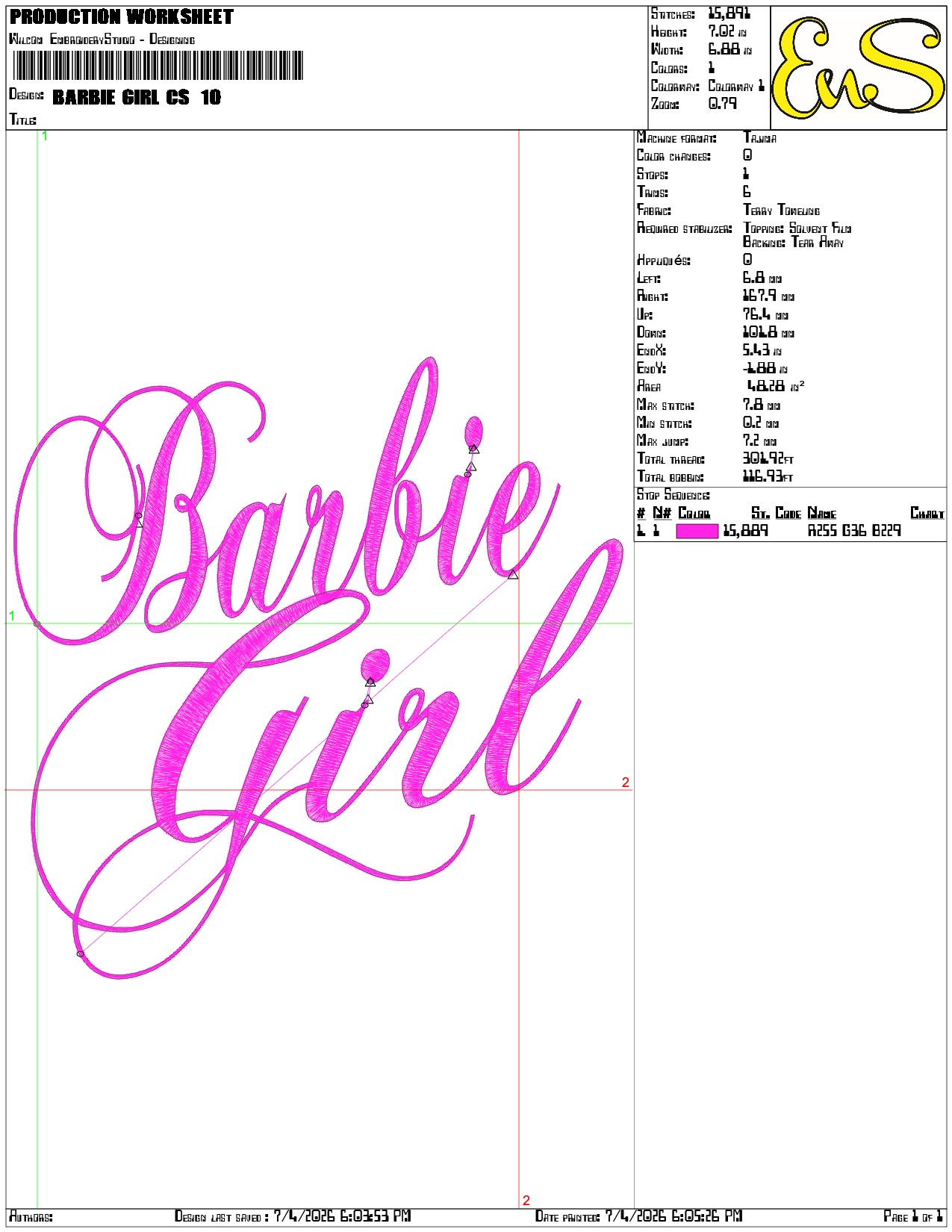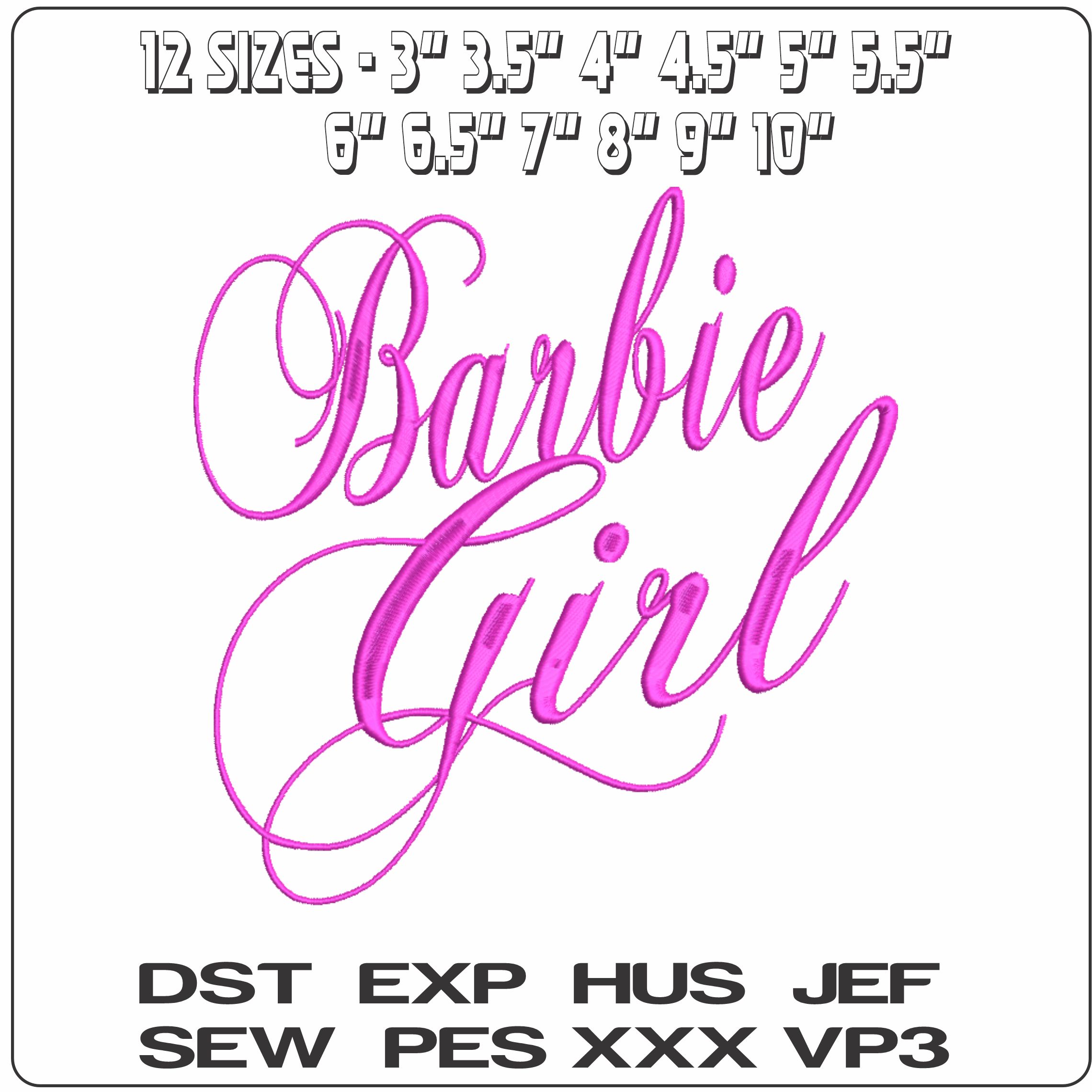
Soft pink Barbie Girl script adds a polished, playful finish to jackets, sweatshirts and bedroom accessories.
For soft pink sparkle, this Barbie Girl embroidery design keeps the focus on the words themselves, stitched in decorative cursive with long swashes and a neatly stacked layout. The Chopin-style script gives it that familiar doll-inspired look without clutter, so it reads clearly while still feeling dressy and feminine. It suits children’s clothing, girly gifts and anyone wanting a bold Barbie-style nameplate feel on everyday pieces.
Because it uses a single thread colour and is lightly stitched, it keeps a clean, airy look rather than turning heavy or blocky. That makes it a good choice for T-shirts, hoodies, denim jackets, tote bags, cushions and quilted bedroom accessories where you want the lettering to sit smoothly on the fabric. With a wide size range, it works just as well as a small chest motif or pocket-area accent as it does centred larger on the back of a jacket or the front of a sweatshirt.